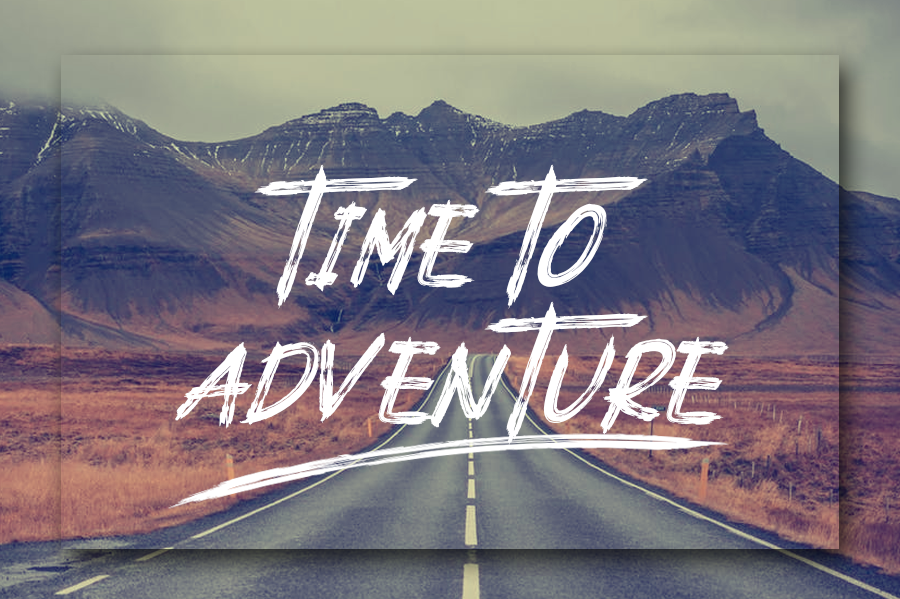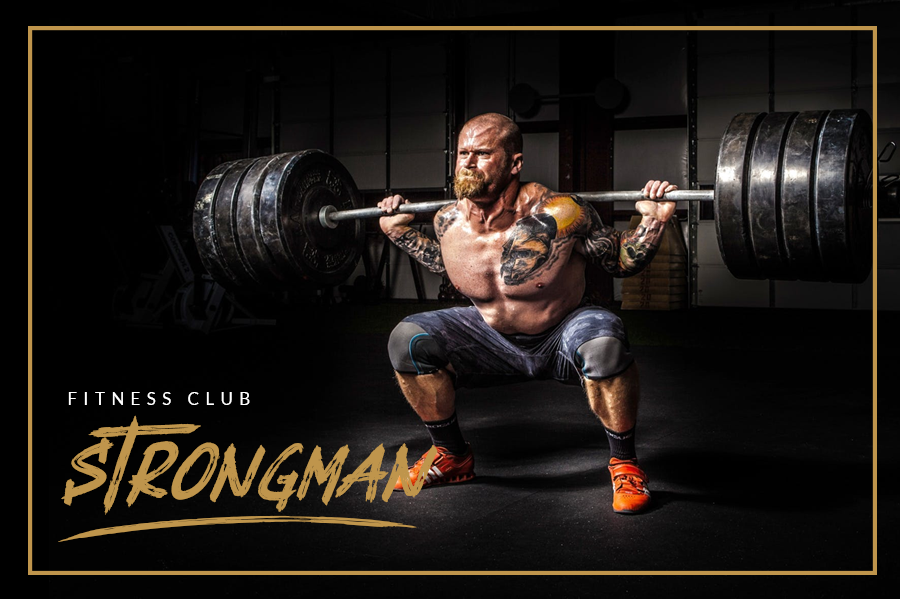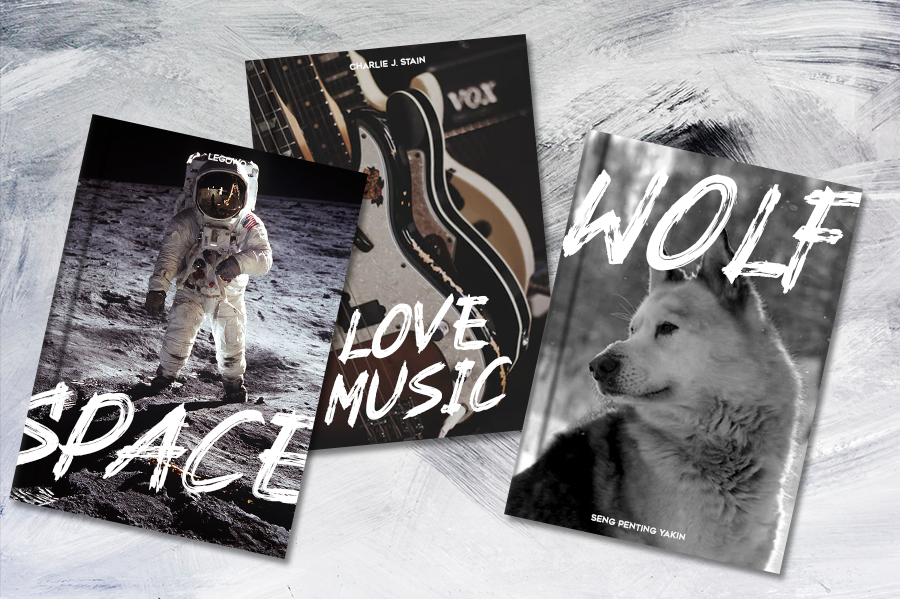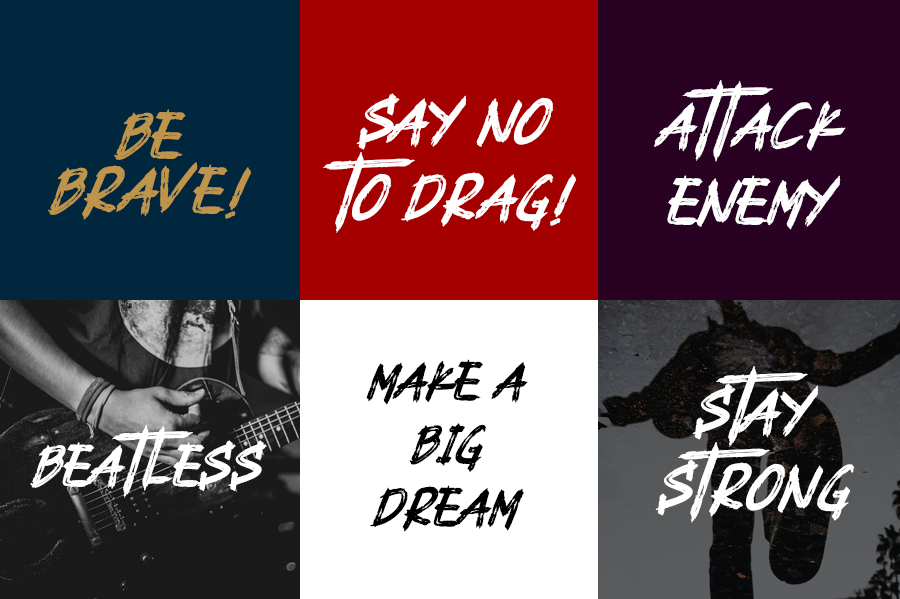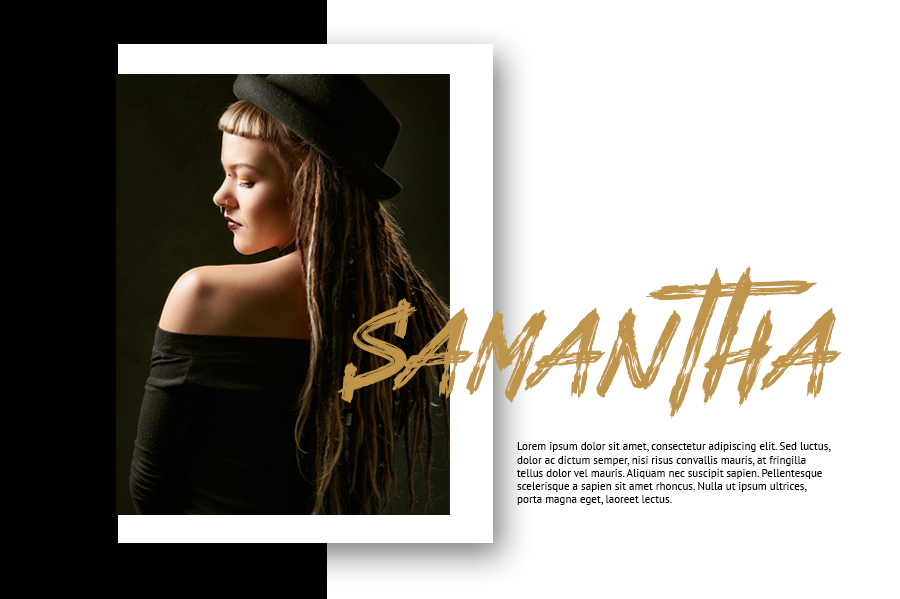
Doubtless Brush Font
Doubtless Brush Typeface , with authentic hand brush imperfections and a very bouncy baseline It has a perfectly paired complimentary marker font , and a super handy set of bonus Swash. Ideal for logos,handwritten quotes, product packaging, header, poster, merchandise, social media & greeting cards!
• Alternates
• Uppercase and Lowercase letters
• Numbering and Punctuations
• Multilingual Support